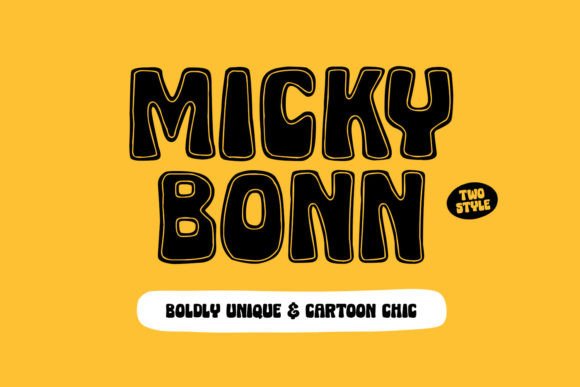
Immerse yourself in the world of Micky Bonn, a captivating display font family inspired by the adorable and exuberant Miku, my muse. This font duo, consisting of an inline style and a clean style, invites you to infuse your creative projects with a blend of boldness, charm, and cartoonish delight.
Micky Bonn exudes confidence and distinctiveness with its meticulously crafted letters, ideal for creating eye-catching headlines, logos, and branding that leave an indelible mark. Its cartoon-inspired details add a touch of nostalgia and approachability, resonating with audiences of all ages.
The handwritten elements of Micky Bonn bring a sense of authenticity and personal touch to your designs. Each stroke mimics the fluidity of human handwriting, forging an intimate connection with your audience that traditional fonts struggle to achieve.
Micky Bonn's versatility shines across a myriad of design applications, from vibrant posters and enchanting invitations to captivating packaging and engaging social media graphics. Its effortless adaptability ensures that your creative vision materializes flawlessly.
Embrace the playful elegance of Micky Bonn and witness your designs flourish in ways you never thought possible. Let Micky Bonn's distinct charm leave an unforgettable impression on every visual masterpiece you create.